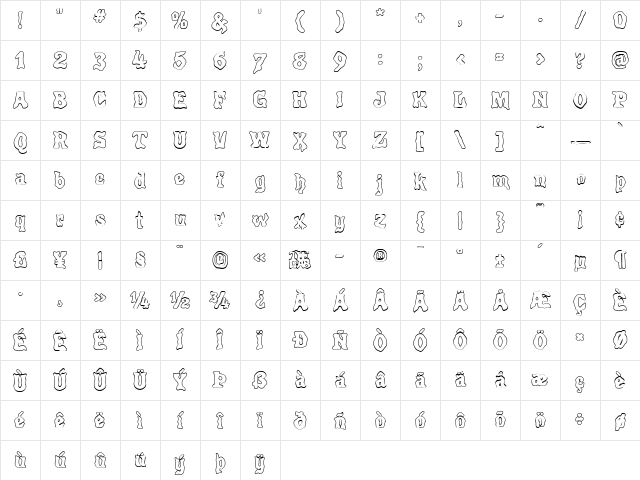
Poultrygeist Out Regular
Design Context for Poultrygeist Out
Poultrygeist Out is a composed and adaptable typeface that performs quietly and consistently across a wide range of design contexts.